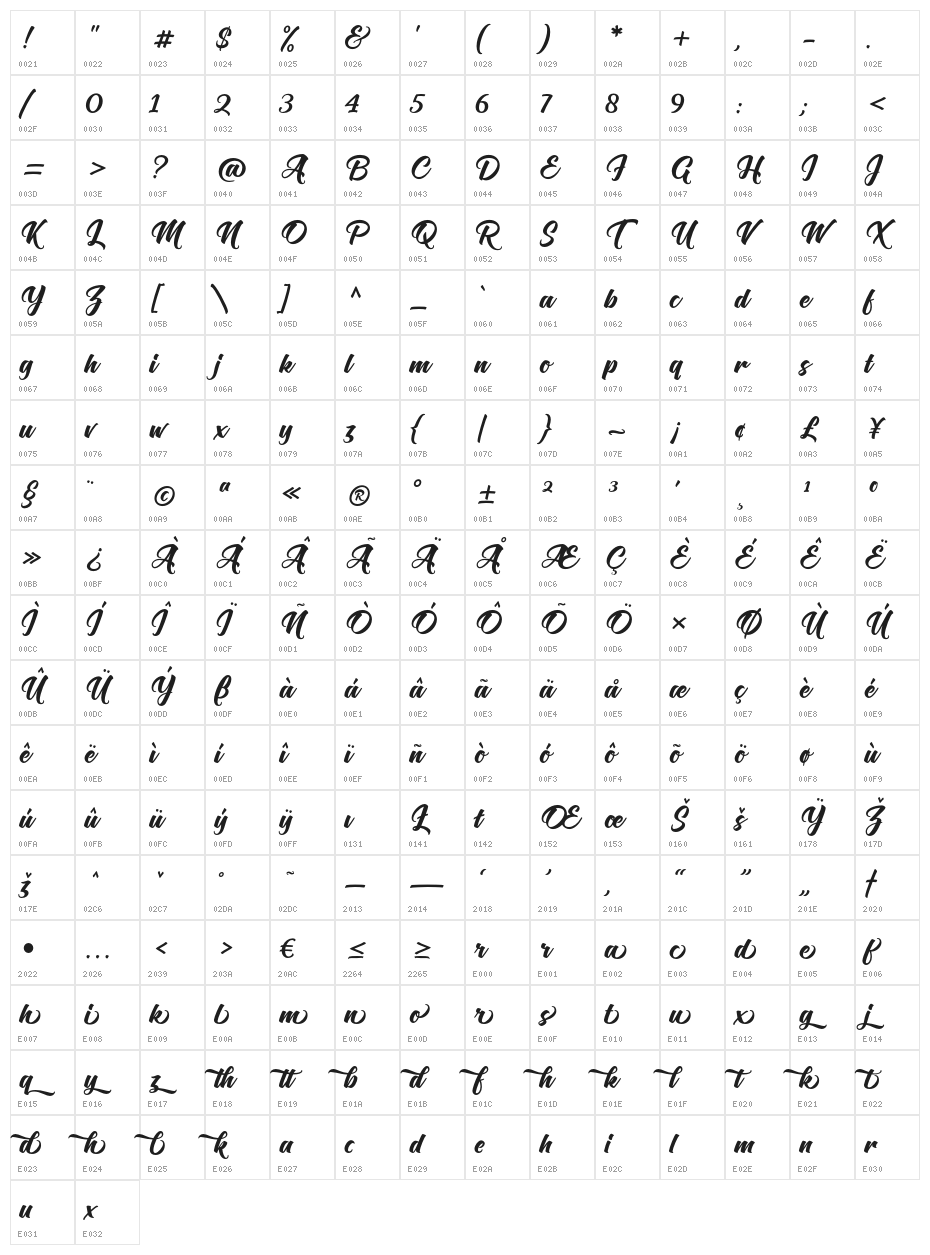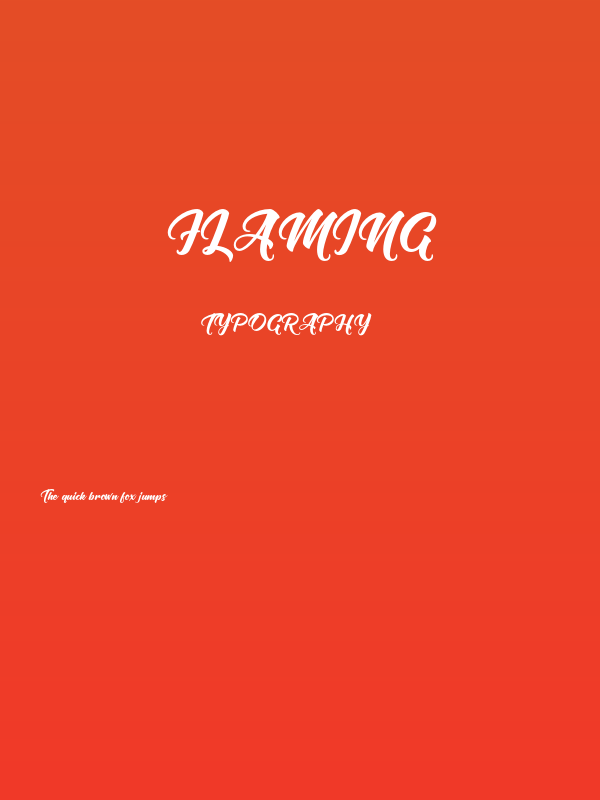
Flaming Font
Flaming Description
This font features a bold and expressive script style, characterized by its flowing, cursive letterforms. The uppercase letters are particularly ornate, with sweeping curves and elegant flourishes that give the font a dynamic and lively appearance. The lowercase letters maintain a consistent style, with smooth connections and a rhythmic flow that enhances readability. The numerals are designed to match the overall aesthetic, with similar curves and a balanced weight. Special characters are thoughtfully integrated, maintaining the font's cohesive look. This font is ideal for projects that require a touch of elegance and personality.
| Proposed Projects | Ideal for wedding invitations, branding, logo design, and elegant packaging. |